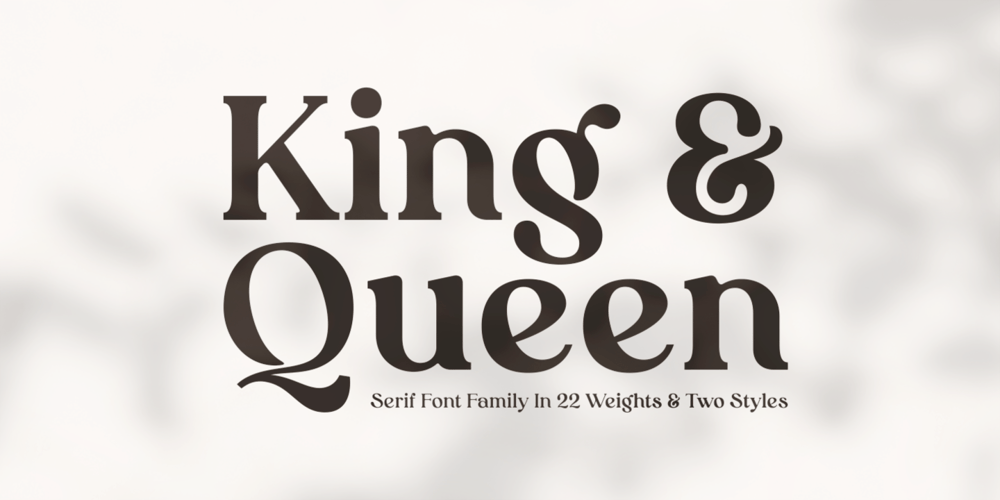
King and Queen
King and Queen font
King and Queen Font Family was designed by Alfin Weniardi and published by Fype Co. King and Queen contains 23 styles and family package options. King and Queen is a contemporary, classy and fresh serif typeface that best suits your design needs. Its ideal for headlines and brand identity design. King and Queen also includes a version, with a greater contrast between thick and thin strokes, for use in even larger sizes. The font comes with italic styles which can be used individually or in combination with the upright variant.